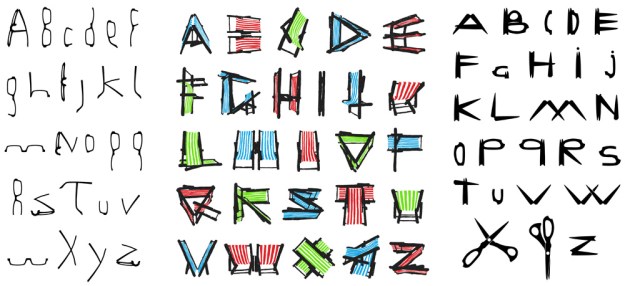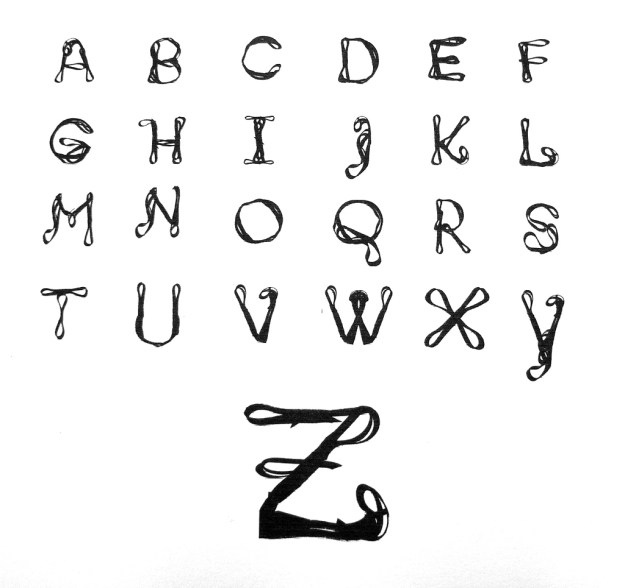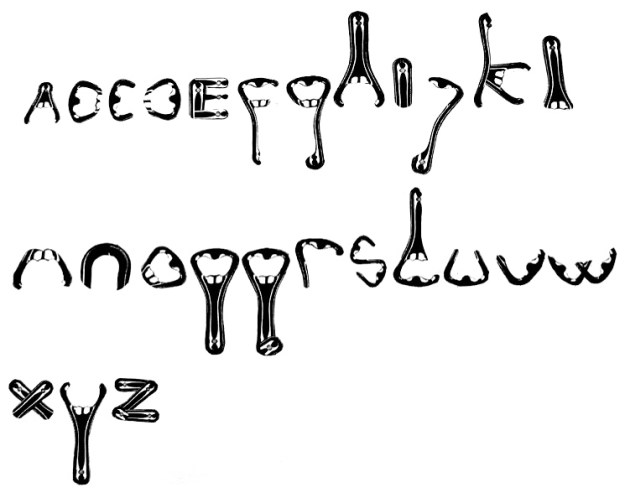
Creative Lockdown Project: Object alphabet
These are strange and unsettling times as around a quarter of the world’s population is now living under lockdown. We’re all readjusting to the new situation and contemplating the future, but the most important thing we can do is listen to the scientists and to stay at home.
Challenge
Look around your home and find an object that you would like to turn into an alphabet. It’s fun if this is clearly a household object so that it represents your time spent in lockdown. For example you could use your glasses, a pair of scissors, a coathanger, kitchen utensils or a child’s toy.
Process
1. Think about how you can reproduce its shape. You could photograph it, trace around it, print with it, put paper over it and take rubbings, draw or paint it.
2. Create each letter of the alphabet. You can rotate, dissect and repeat its shape to make the letters. For an extra challenge add in glyphs like &, !, ?, @ and numbers.
Results
Examples
Elastic band alphabet by Catherine Nippe
Bottle opener alphabet by Hannah Clark
Lego alphabet by Marcos Arruda